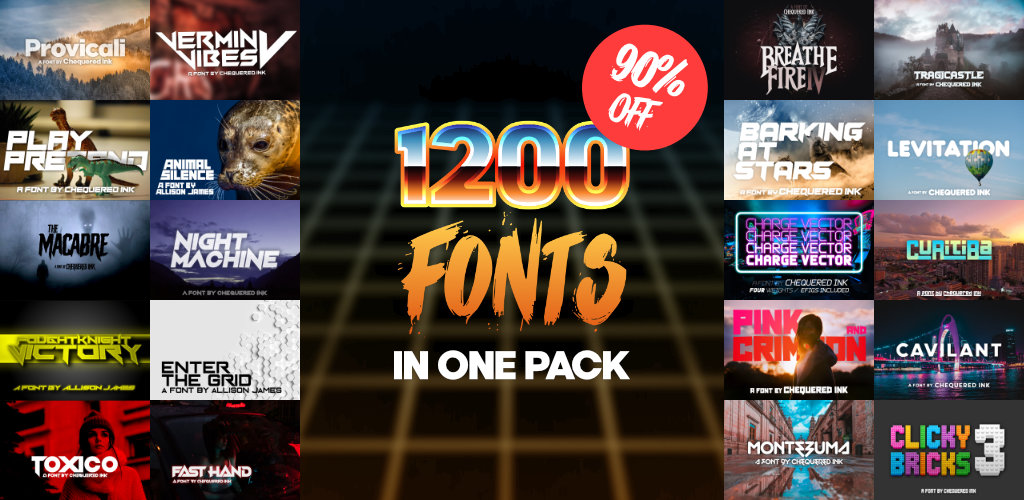
There is a subfolder for horror fonts with 35 fonts in it, which vary between bloody and spiky looking... I wouldn't have said any looked like "slime" though.
Here's a full list:
Manly Man Font, Digital Display, Distortion of the Brain and Mind, Gnome Splinters, Bevel Fifteen, Italic Bricks, Notalot25, Notalot35, Vermin Vibes 1989, {PixelFlag}, Rvaturecu, See You At the Movies, Ace Futurism, DubbingStar, Electramaniacal, Here Be Dubstep, Not Sure if Weird or Just Regular, Opulent Fiend, Quous Inno, Lord Juusai, FoughtKnight, Gang Wolfik Blade, Gang Wolfik, Metal Arhythmetic, Particulator II, Particulator, Rawhide Raw 2012, The Missing Link, Triggering Fanfares, Understrukk, Vermin Vibes Diet, Vermin Vibes Redux, Vermin Vibes, Xero's Karma, Xero's Theorem, Xodohtro-Nu, Pastcorps, Berate the Elementary, Sorrier Statements, Zephyr Jubilee, Kinglify, She Curls in the Mist, Alt West
Some do, some don't. You can check by searching for the font on fontspace (all of our fonts are there) and set the preview text to show the characters you want like ñ or á etc.
We haven't added the font file to the pack yet, but we will at some point in future and we always say our new fonts are covered by the license of the All Fonts Pack.
Thank you, I'll check them out. I am using Inkscape and Fontforge so far, but it's kinda hard to do stuff in FF, especially the kerning (kinda stuck on it lol). Is the kerning in Font Creator easier?
Kerning in FontCreator's not too bad, but it does have quite a few little quirks and tricks that get it that way.
Fwiw: can only speak from the perspective of older versions. I use FontCreator 11 for all Chequered Ink fonts; I've bought 14 and it changed so much that it massively impeded my workflow, so I went back down. 15 is the version on sale now; the kerning info I'm about to give may not apply.
There's an automatic kerning tool in FontCreator but it does require a lot of manual work to make it great. It's a bit of a dice roll; some fonts only need minimal adjustments, others you may as well clear everything and do it from scratch. It works off of the base height, x-height etc of each character, and some don't look great.
Thankfully, fixing is mostly a matter of creating a new/selecting the existing pairing of characters you want to alter, and then dragging them together or apart as required. There is also an in built code editor for them, which can be handy for fast changes, adding eg. accented versions of the same letter to the same kerning pair, and also prefabbing kerning for a specific font style if you know it'll fit similar-style fonts in the future. (Very handy when you've made 970 of them.)